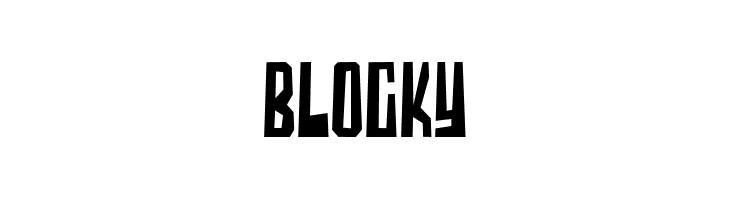
( Fonts by Meir Sadan - www.sadan.com OFF SITE )
A bold, modern font with thick, uniform strokes for impactful headlines.
( Fonts by Aliff Roslan )
A playful, block-inspired font with mechanical bolt details.
( Simon Schulte - www.simon-schulte.de )
A bold, hand-drawn font with dynamic and irregular strokes.
A bold, pixelated font with a retro, digital aesthetic.
A bold, 3D block font with a stepped shadow effect.